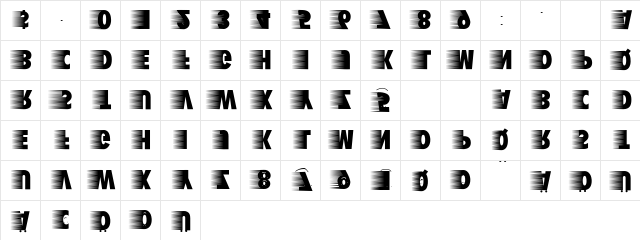
Complete BreezeAntipodes Regular glyph index. Displaying only characters natively supported by BreezeAntipodes Regular font.
BreezeAntipodes is a composed and adaptable typeface that performs quietly and consistently across a wide range of design contexts.